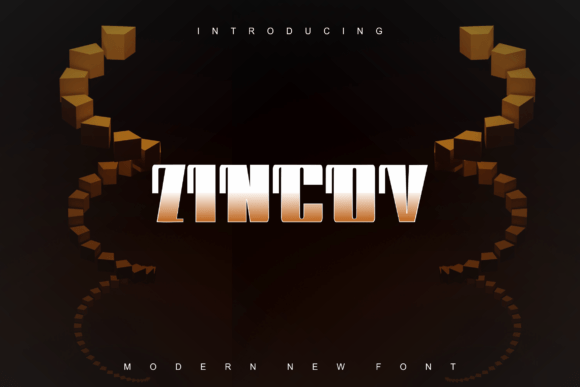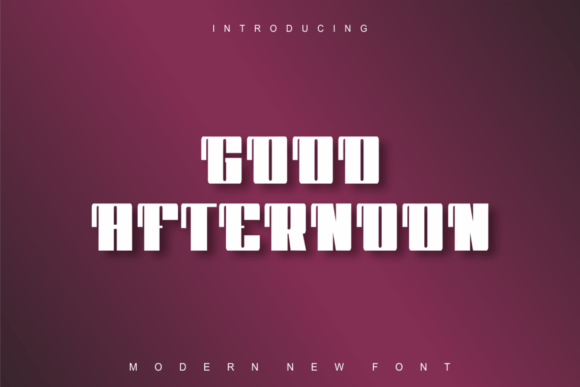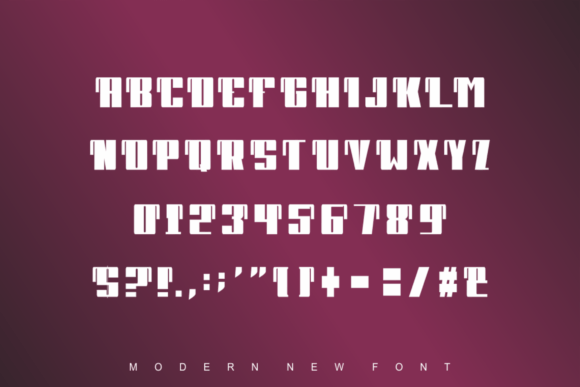
Zincov
Zincov: A Modern and Bold Slab Serif Font
Zincov is a modern, bold, and authentic slab serif font. It’s perfect for various branding projects, including logos, t-shirt printing, export materials, and much more. This versatile typeface will look outstanding in a wide range of contexts.
Key Features of Zincov
• Modern Design: Offers a contemporary look suitable for current design trends.
• Bold Appearance: Makes a strong visual impact, ideal for grabbing attention.
• Authentic Style: Brings a genuine and unique touch to designs.
• Slab Serif Structure: Features distinctive thick serifs typical of slab serif fonts.
Best Uses for Zincov
Zincov’s unique characteristics make it particularly well-suited for:
When using Zincov in your designs, keep these tips in mind:
• Use for headlines or short text to showcase its bold and modern style.
• Try different sizes to highlight the font’s unique features.
• Pair with simpler fonts for body text to create contrast.
• Experiment with colors to enhance its contemporary appeal.
To sum up, Zincov is a great choice for designers who want a modern and bold slab serif font. Its ability to look outstanding in many contexts makes it a versatile option for numerous creative projects. Whether you’re creating brand materials, designing t-shirts, or developing export items, Zincov offers the perfect mix of modernity and boldness.
Moreover, Zincov’s unique design allows it to shine in various branding contexts. For instance, from logo designs to advertising campaigns, this font can elevate your projects with its distinctive style. Also, its bold yet readable look works well in designs that aim to make a strong visual impact while maintaining authenticity.
In conclusion, Zincov truly captures the essence of modern, bold design in slab serif typography. Its versatility across different applications shows how it can fit various creative needs. Therefore, for those wanting to add a touch of contemporary charm to their work, Zincov can enhance themed creations with its unique style. Ultimately, it’s an ideal choice for designers aiming to make a strong, modern impact across a wide range of branding and design projects.